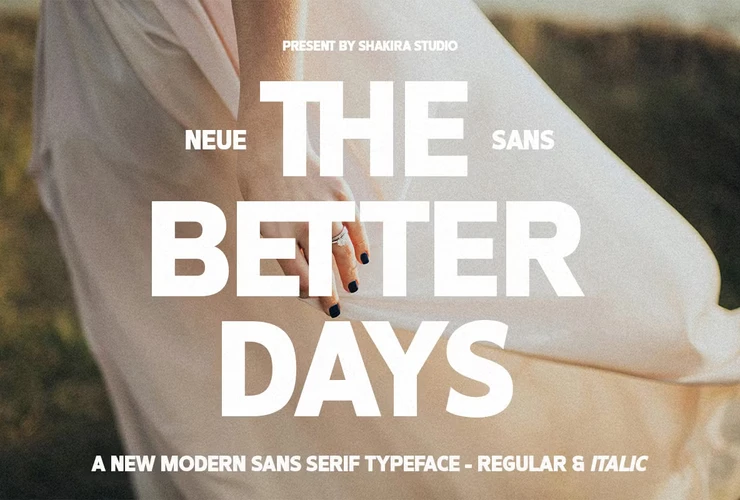
The Better Days: A Modern Sans Serif for Contemporary Design
The Better Days is a refined modern Sans Serif font designed by Shakira Studio. Characterized by its simplicity and clarity, this typeface is perfect for today’s contemporary design needs. Whether you’re working on branding, digital projects, or editorial content, The Better Days offers a versatile solution that enhances any visual narrative with elegance and precision.
Features of The Better Days Font
This modern sans serif font is thoughtfully designed to meet the demands of modern design projects. Here’s why it stands out:
Versatile Styles: The Better Days is available in both Regular and Italic versions, allowing designers to create dynamic and cohesive visual hierarchies in their work.
Multilingual Support: The Better Days includes multilingual characters, making it suitable for global projects across various languages including French, German, Italian, and many more.
OpenType Features: With ligatures and alternates, this font provides additional creative flexibility, enabling designers to craft unique typographic compositions.
Ideal Use Cases
The Better Days is an ideal choice for a wide range of design applications. Its clean lines and minimalist aesthetic make it perfect for:
Headlines: Create striking headlines that grab attention with clarity and modern appeal.
Logos: Design timeless logos that communicate brand identity with simplicity and sophistication.
Body Text: The font’s readability and clean design make it suitable for body text in both print and digital formats.
Whether you’re working on branding, website design, advertising, or editorial content, The Better Days will enhance your projects with its modern elegance.